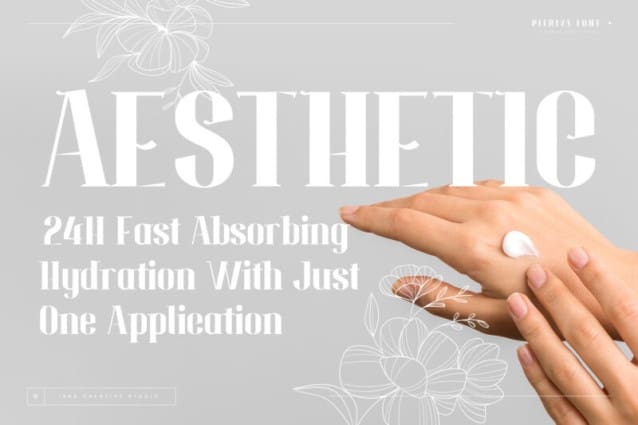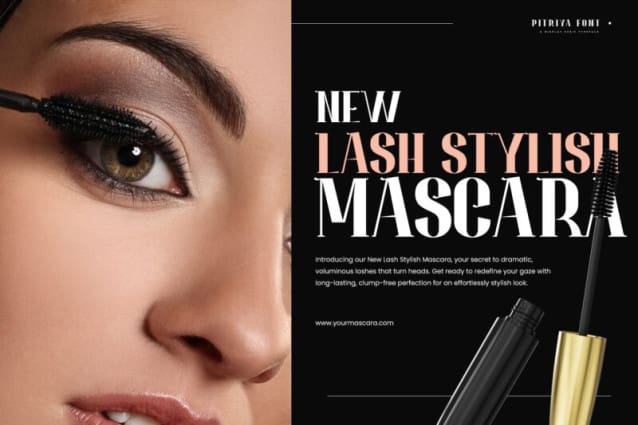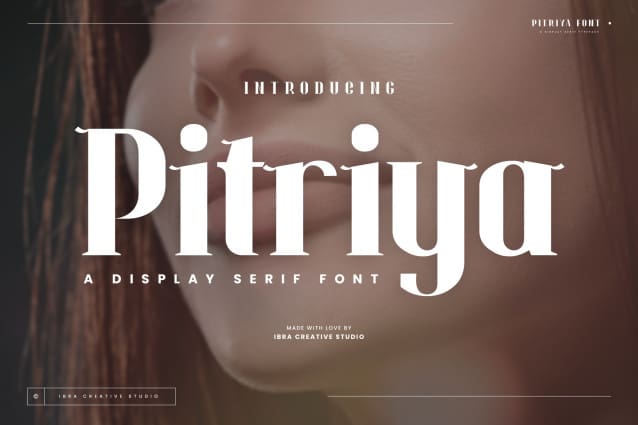
Pitriya Font
Pitriya Font is a captivating display serif typeface that effortlessly blends classic elegance with a modern twist. Its unique character lies in the harmonious balance between thick and thin strokes, creating a distinct sense of refinement and sophistication. Each letter is meticulously crafted with precision and ornate details, making Pitriya a perfect choice for high-end branding, editorial design, and formal invitations. The serifs are gracefully extended, adding a touch of grandeur to the text, while the ample x-height ensures readability even at smaller sizes.
Pitriya Font is a timeless typeface that commands attention and imparts an air of timeless beauty to any project it graces.